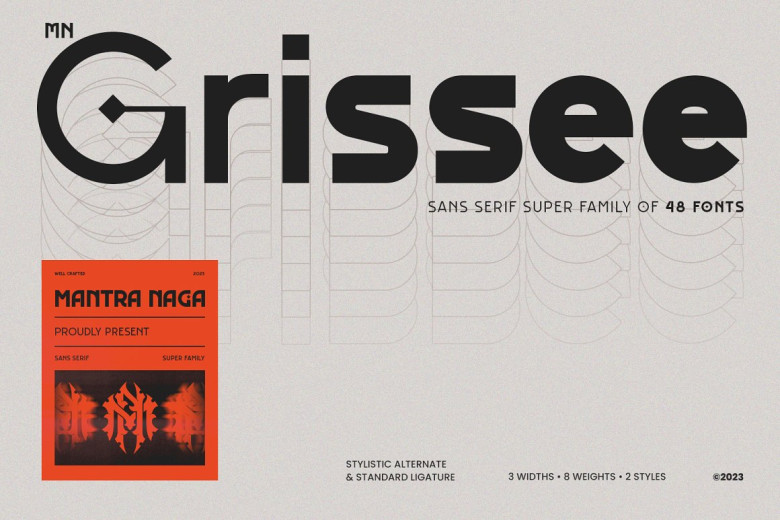
MN Grissee Font
MN grissee was designed with versatility in mind, making it the ideal sans-serif family for web and graphic design applications. Boasting 436 glyphs with rounded corners and eight weights. 48 fonts from this family come in 3 widths each weight with 2 styles available and professional Opentype features like pro-kerning, stylistic alternatives, swashes, standard ligatures etc are included with every font family in this family.